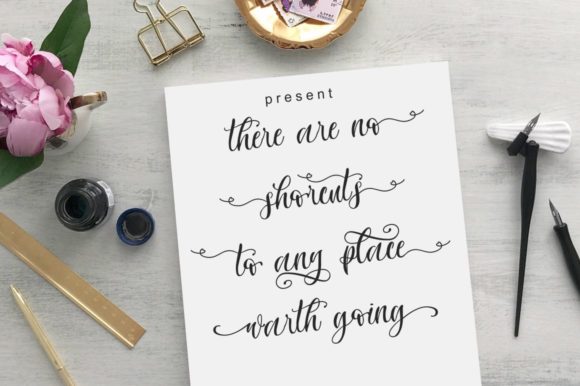
Introduction to Mendiang Font
Mendiang is an elegant and flowing handwritten font.
It is PUA encoded which means you can access all of the glyphs and swashes with ease It maintains its classy calligraphic influences while feeling contemporary and fresh.